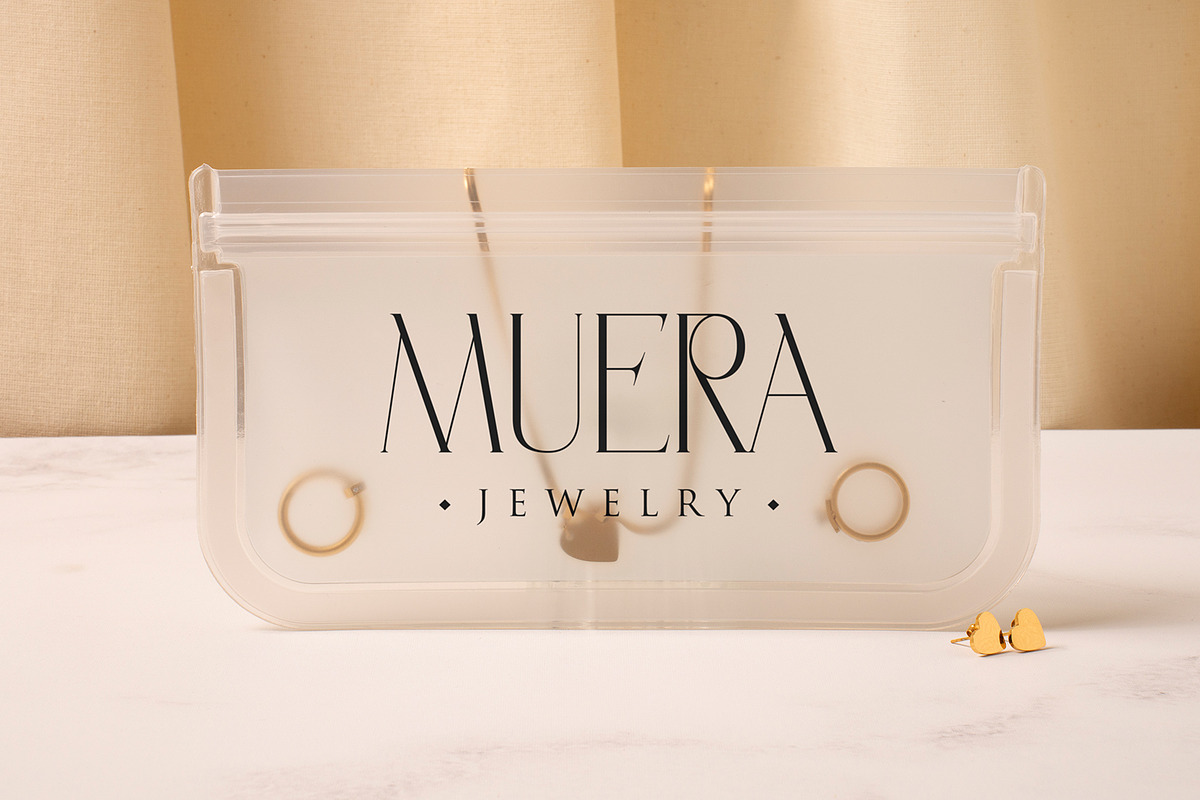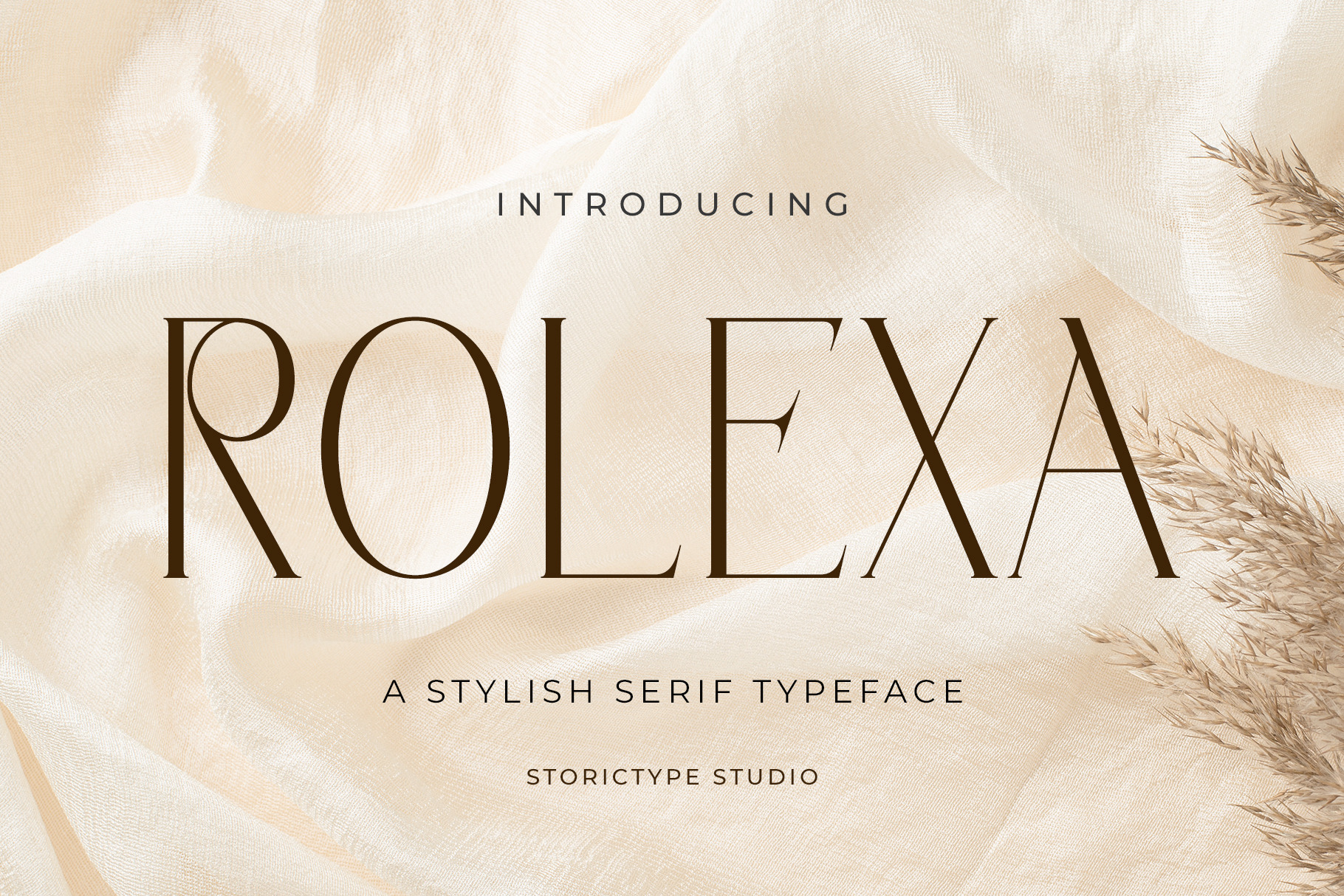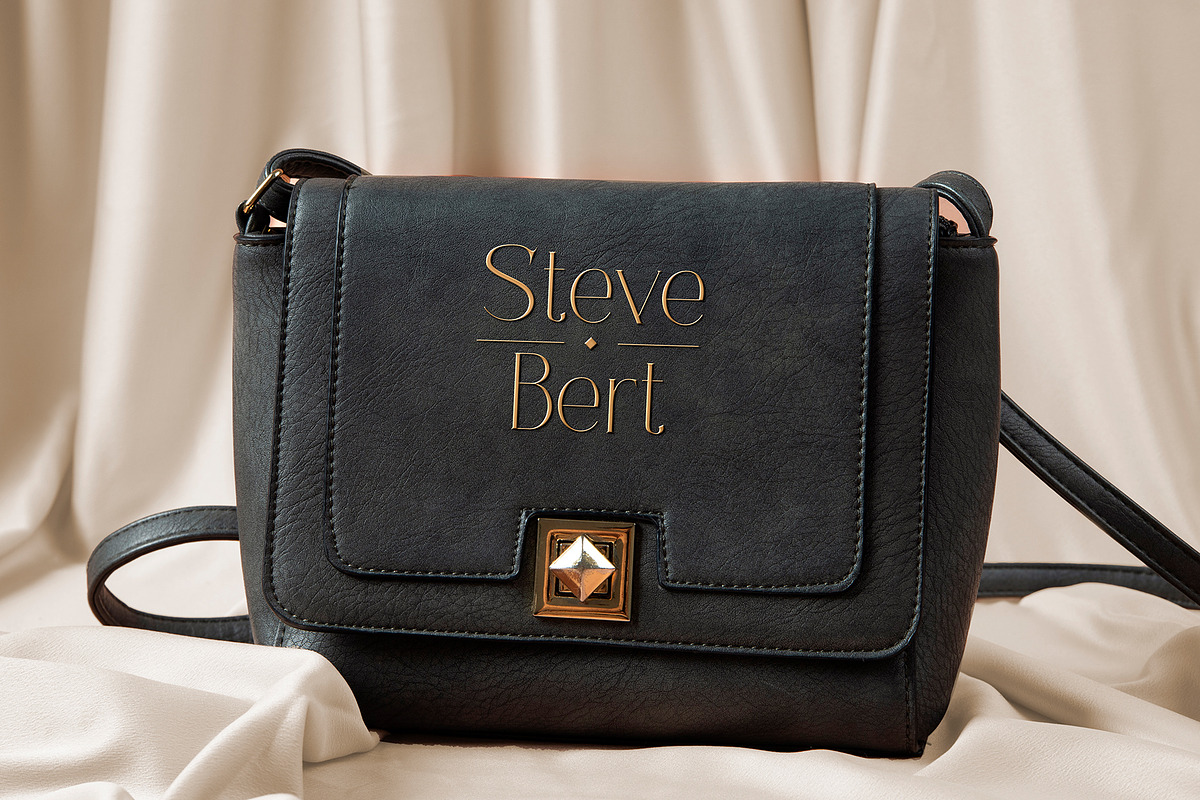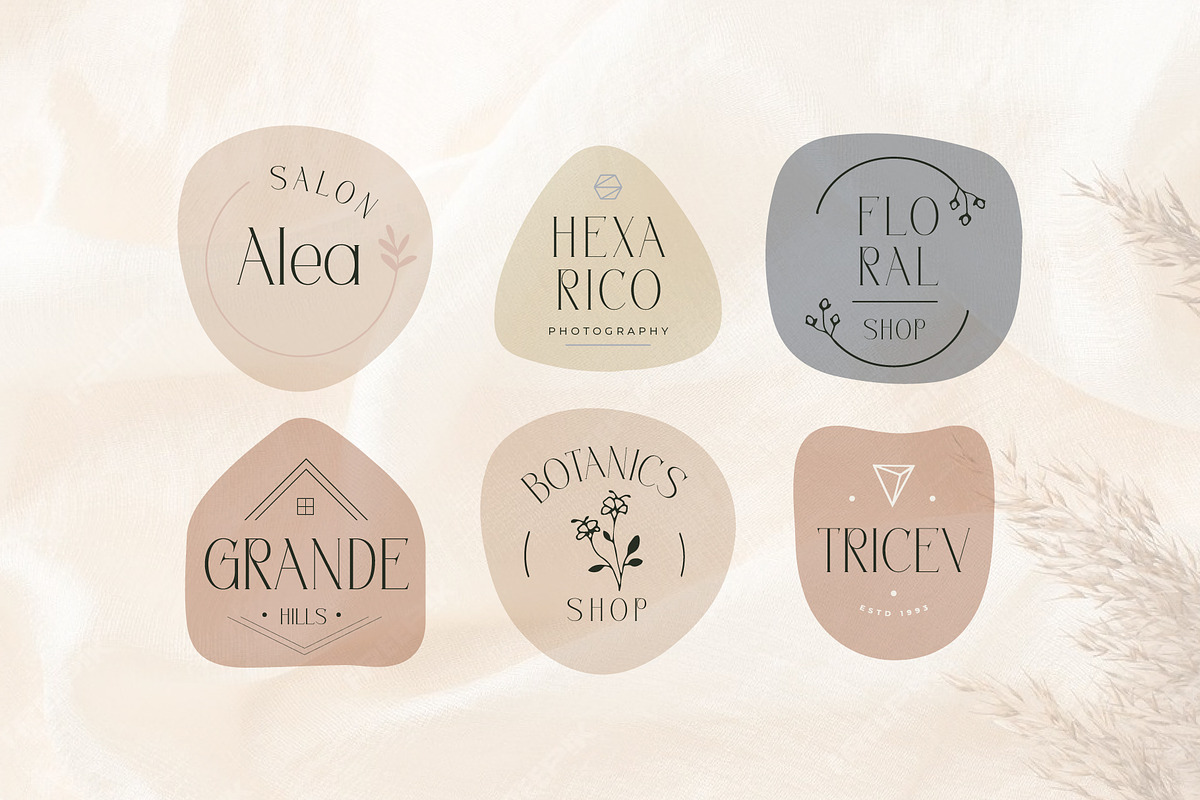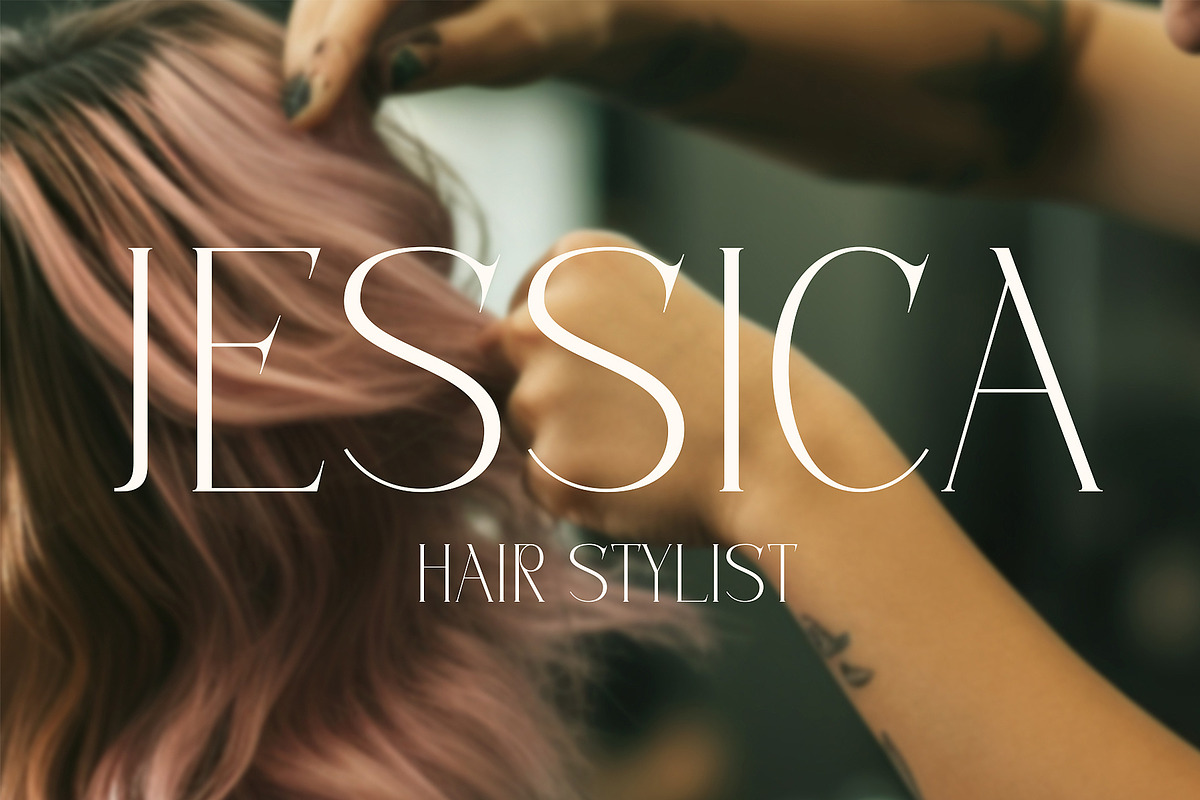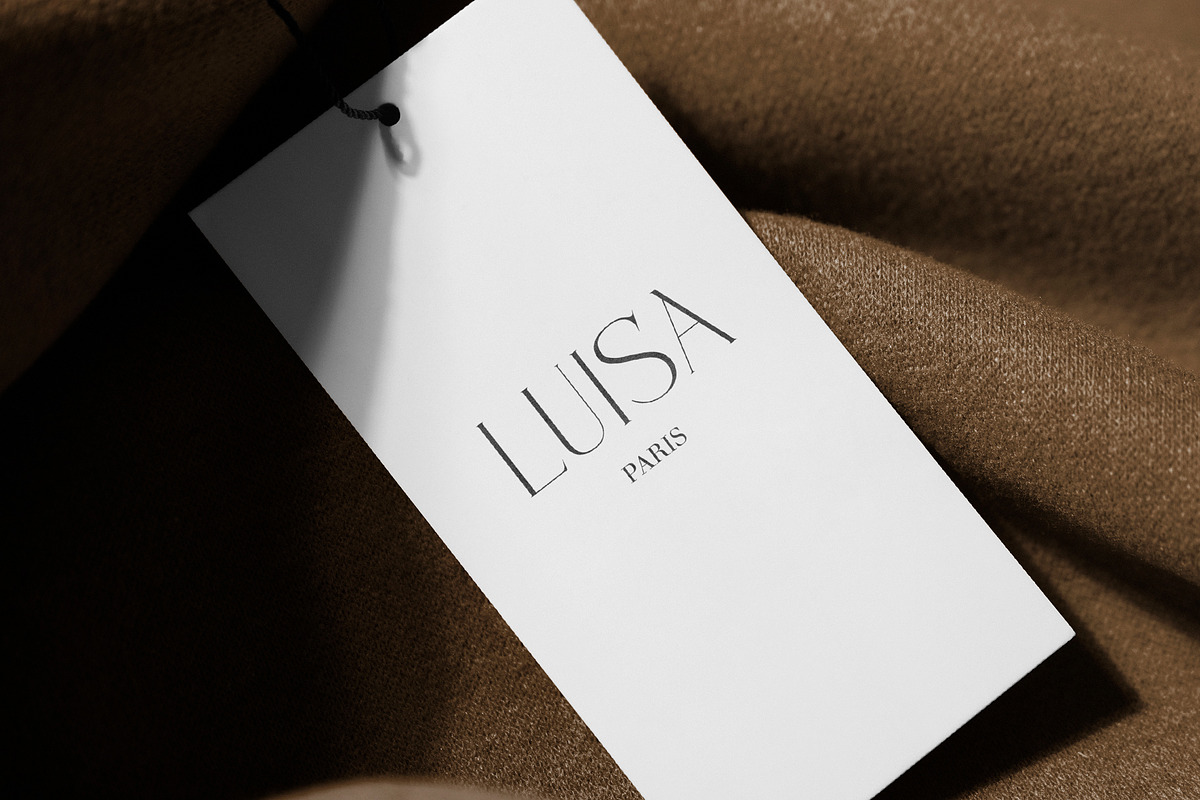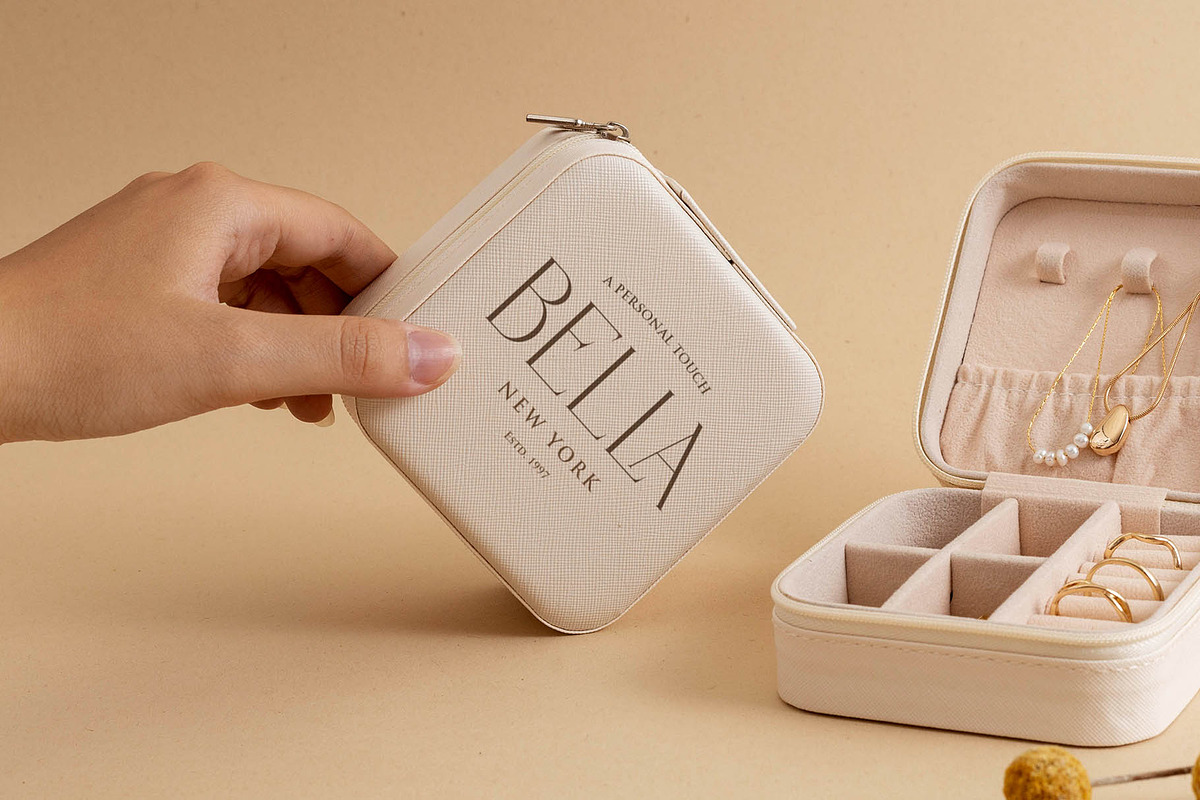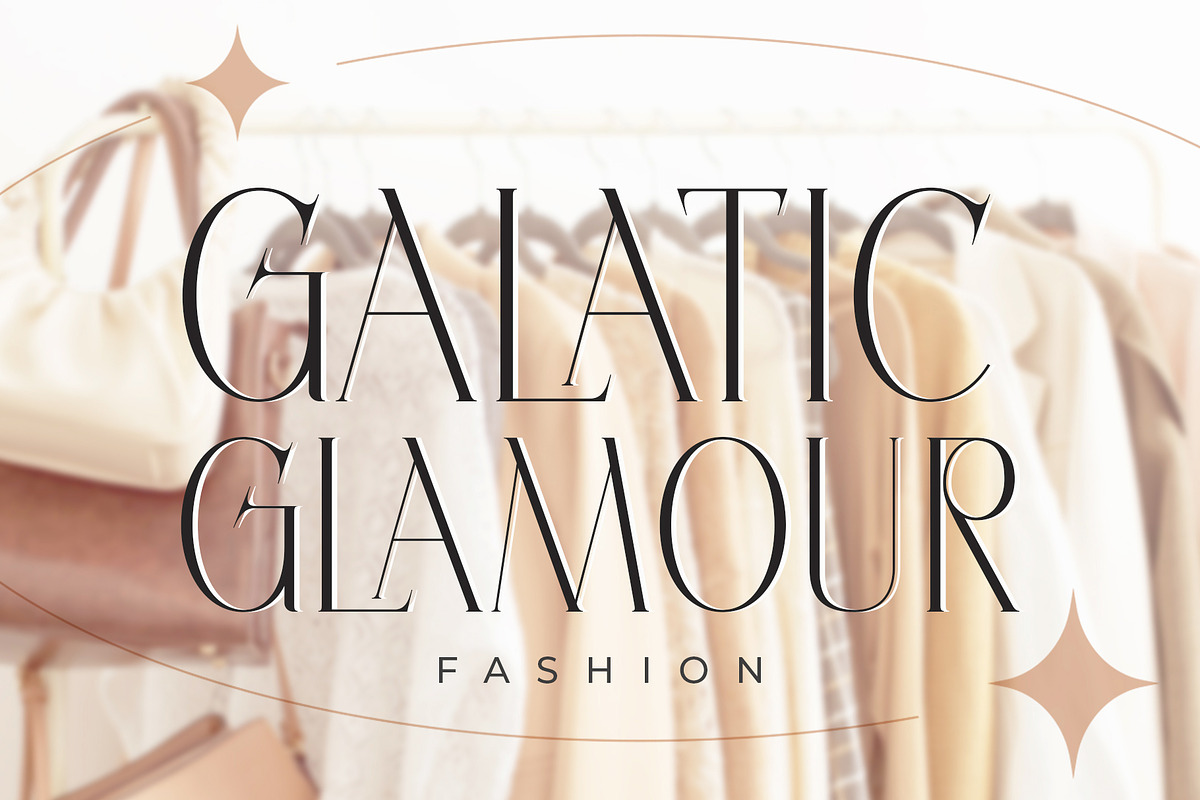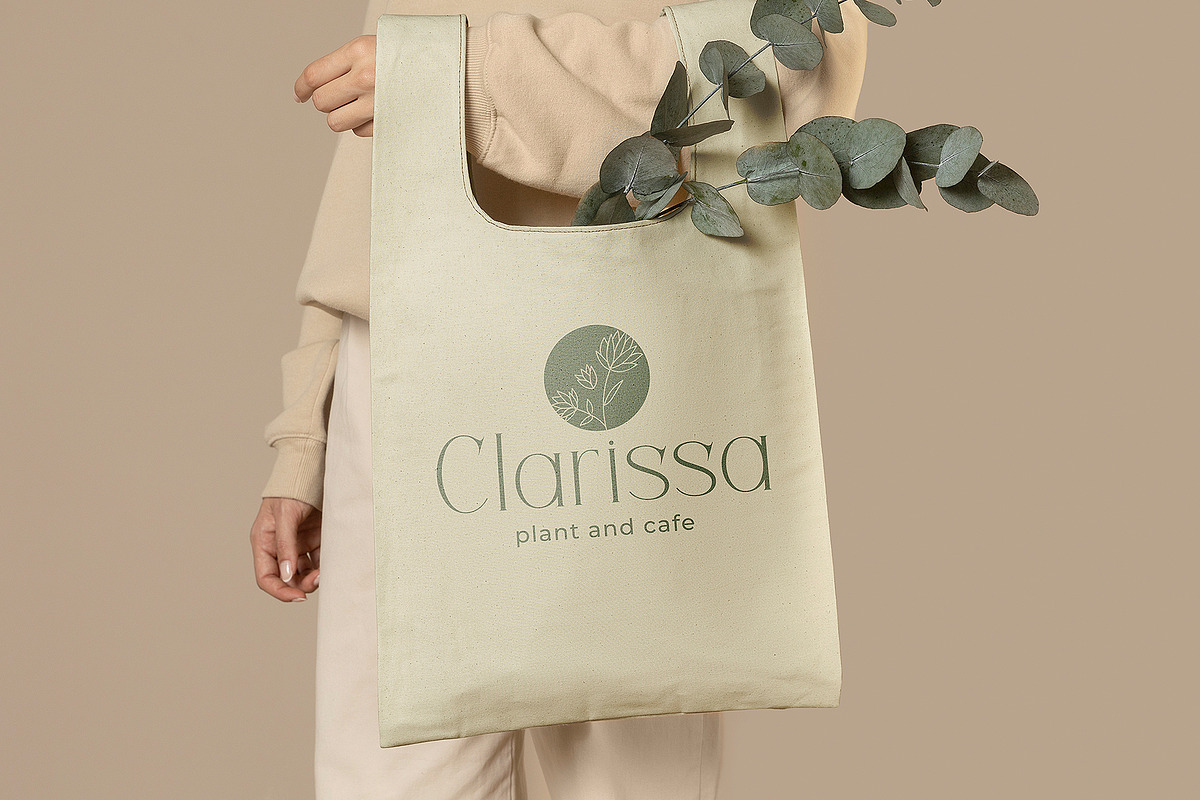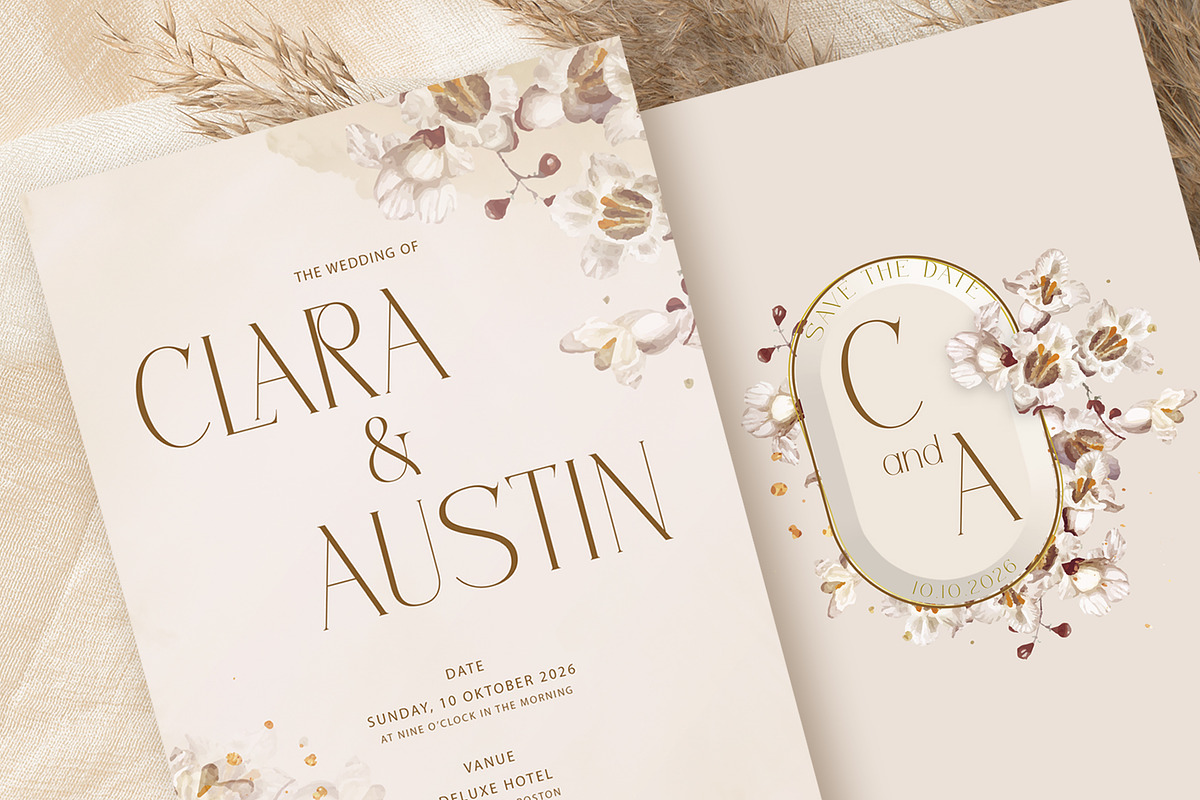
ROLEXA | Elegant Stylish Serif Font
Rolexa is a new carefully crafted serif fonts. The Ideas of this fonts are from wide range of reference, from classic, until the modern era. So the looks of this fonts must be in the wide range of the reference above. It’s Versatile and Luxury feel that you get in Rolexa Typefaces. Immerse your design in the world of elegance and refinement with our premium serif luxury typeface, designed to bring a sense of grandeur to your creative endeavors. Experience the epitome of luxury in typography with our meticulously crafted serif typeface, exuding timeless beauty and grace for your high-end designs.
As you can see our creation on the display such as Branding, Header, Logotype, Poster, Magazine, Packaging, Wedding Invitation with art deco style, and etc. It shows that Rolexa can accommodate various design style.